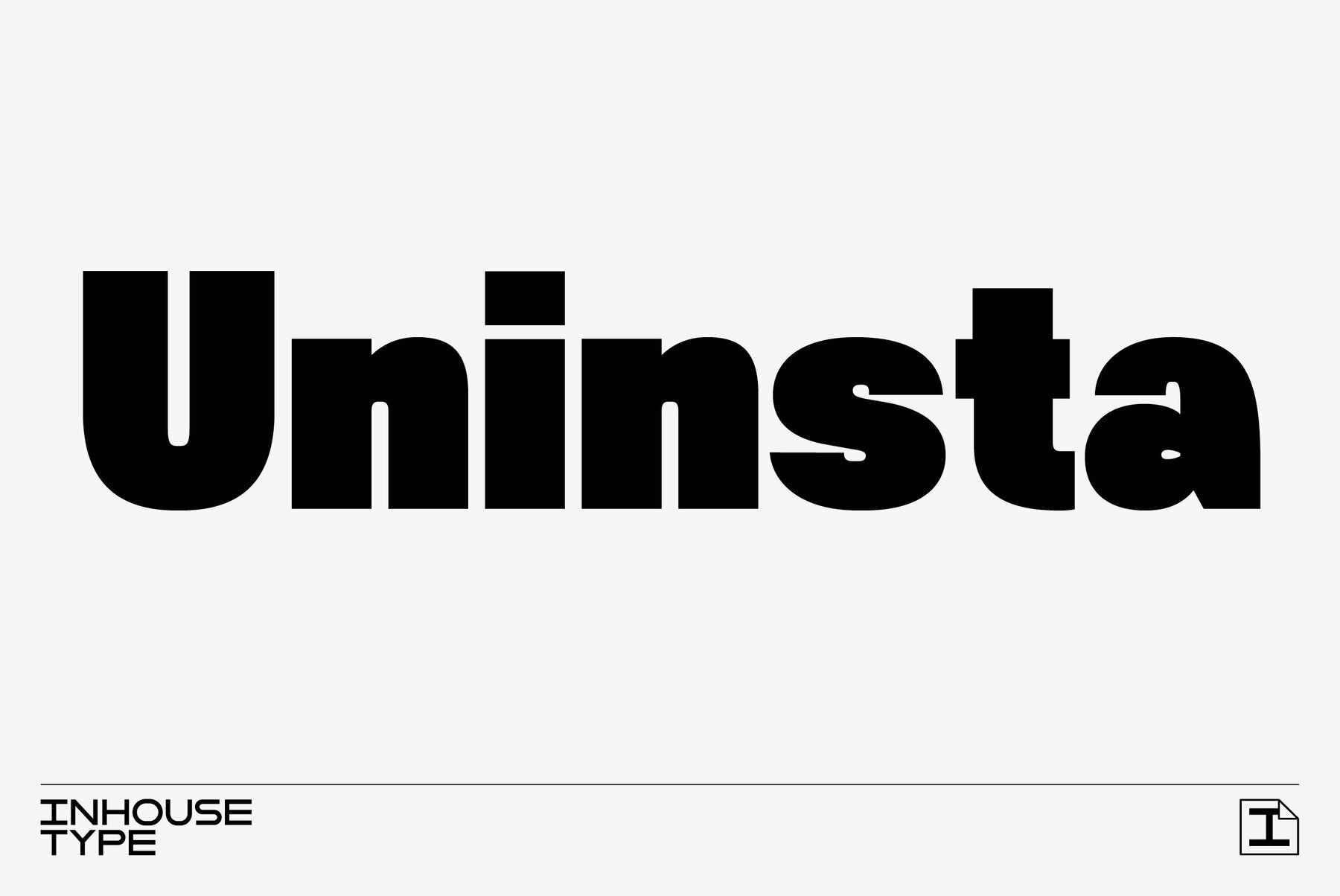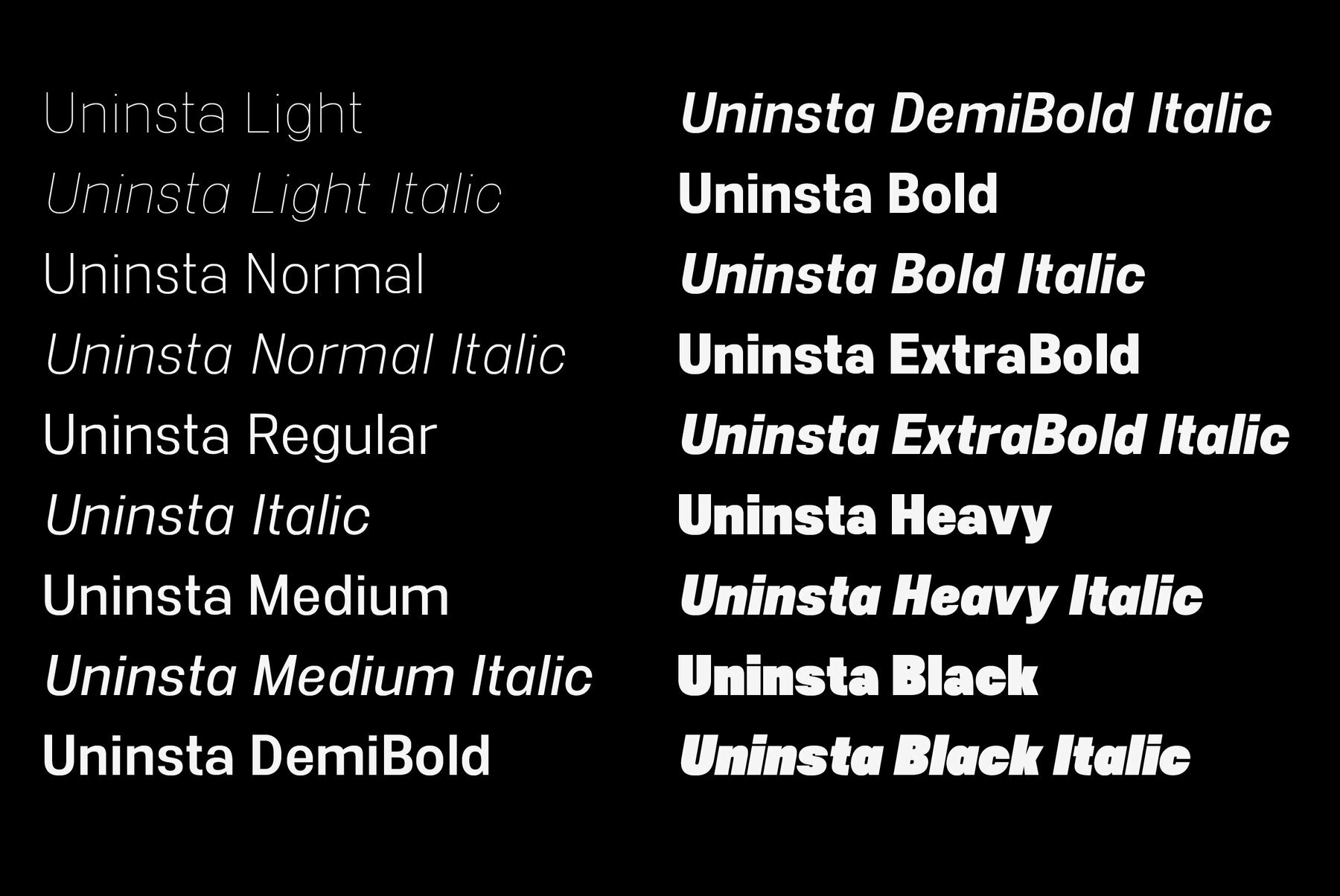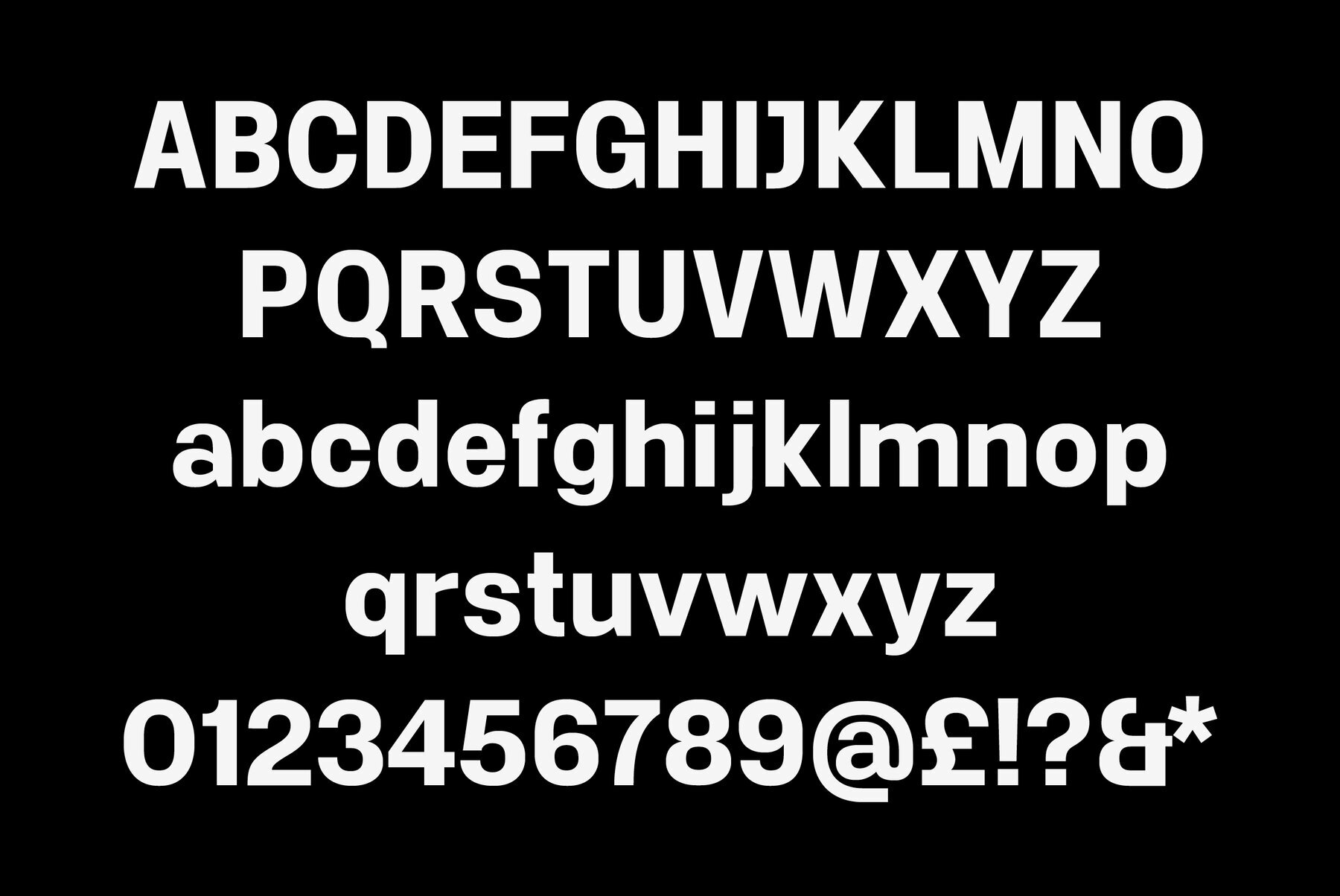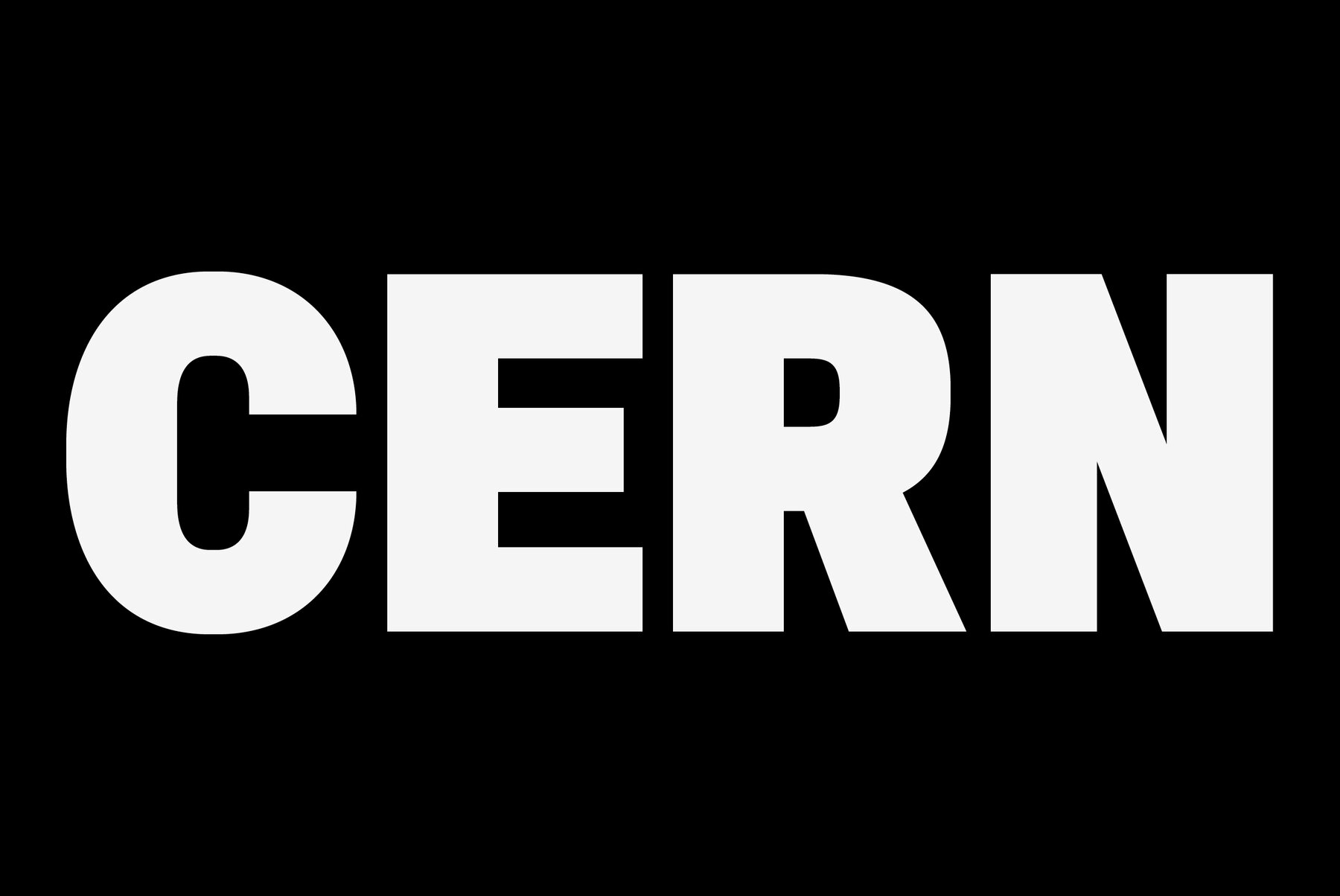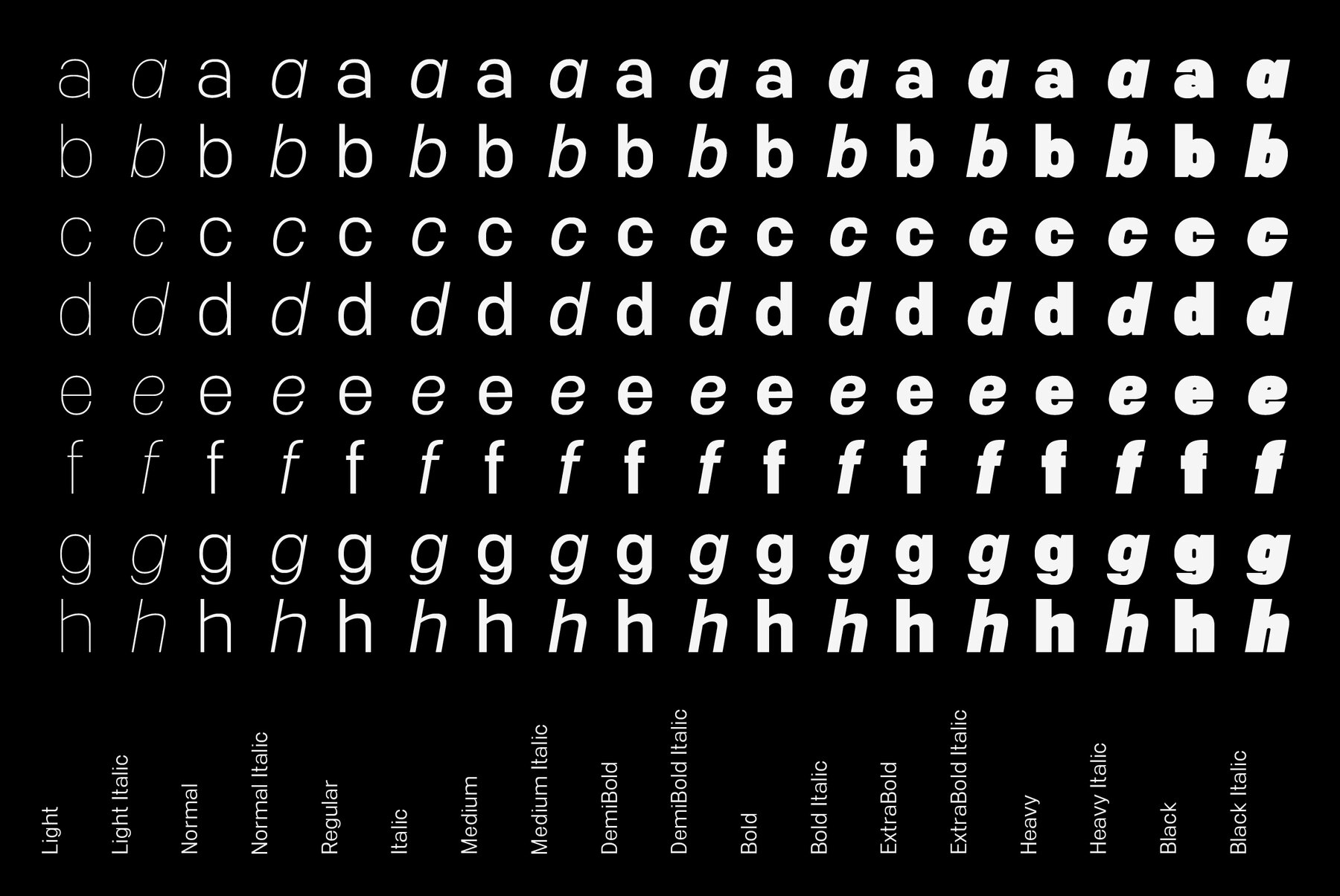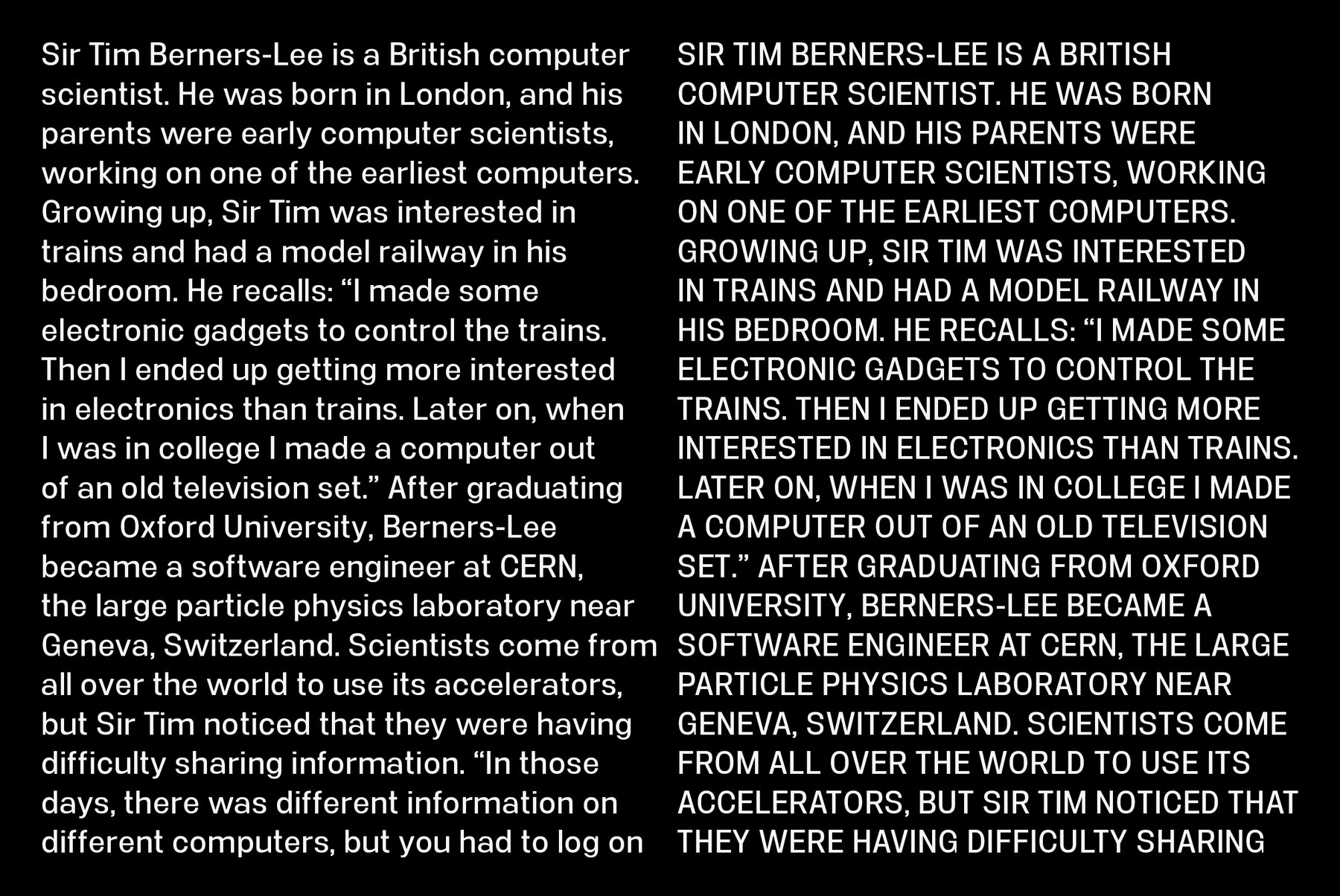
Uninsta Font
Uninsta is a neutral sans serif font family intended for use across a variety of modern applications in both digital and print media. Geometric letter forms are combined with subtle humanist touches to create a legible, low contrast typeface with a great personality. Details include 9 harmonized weights with true italics, over 490 characters, alternative lowercase 'a' and uppercase 'Q' with associated accents, manually edited kerning and OpenType features.